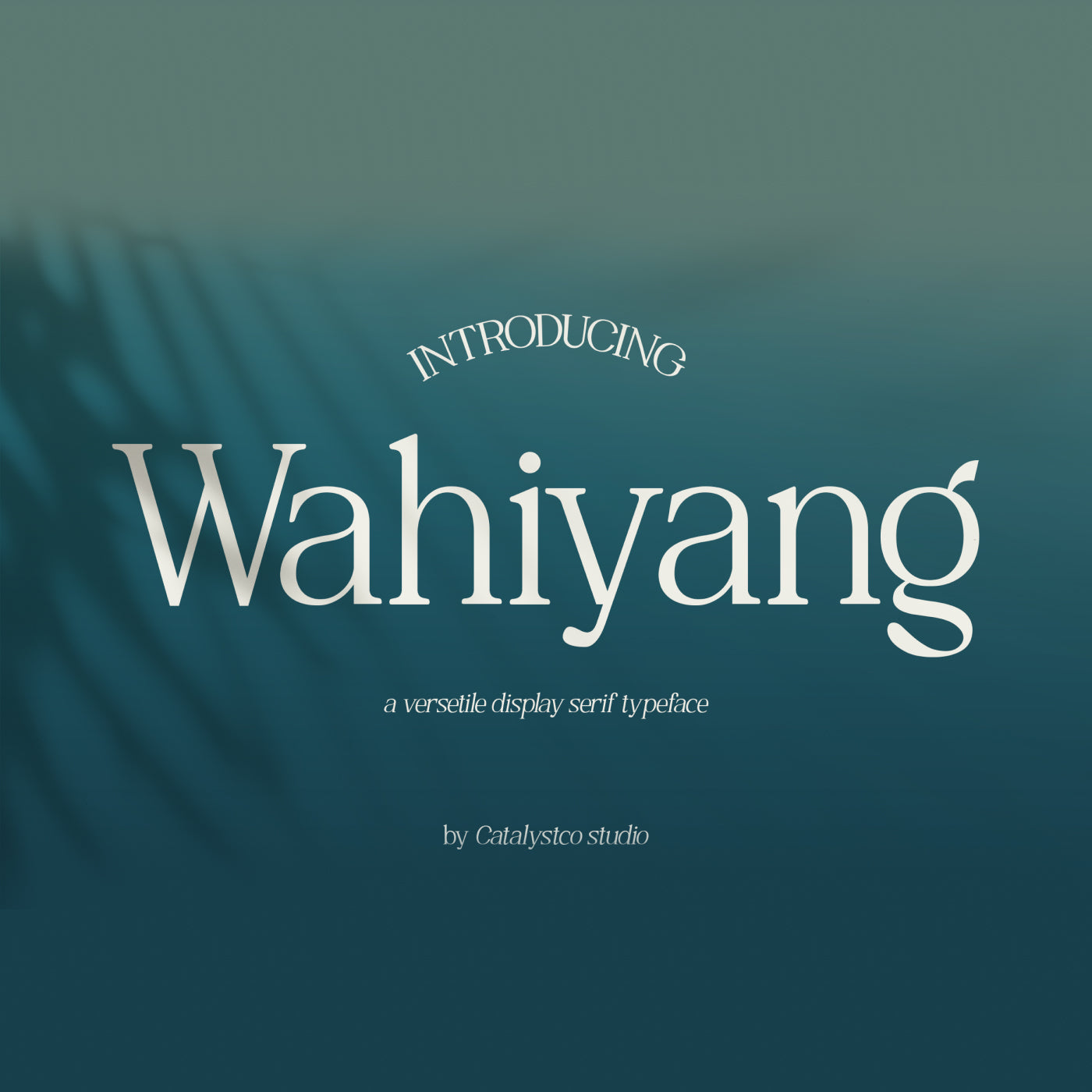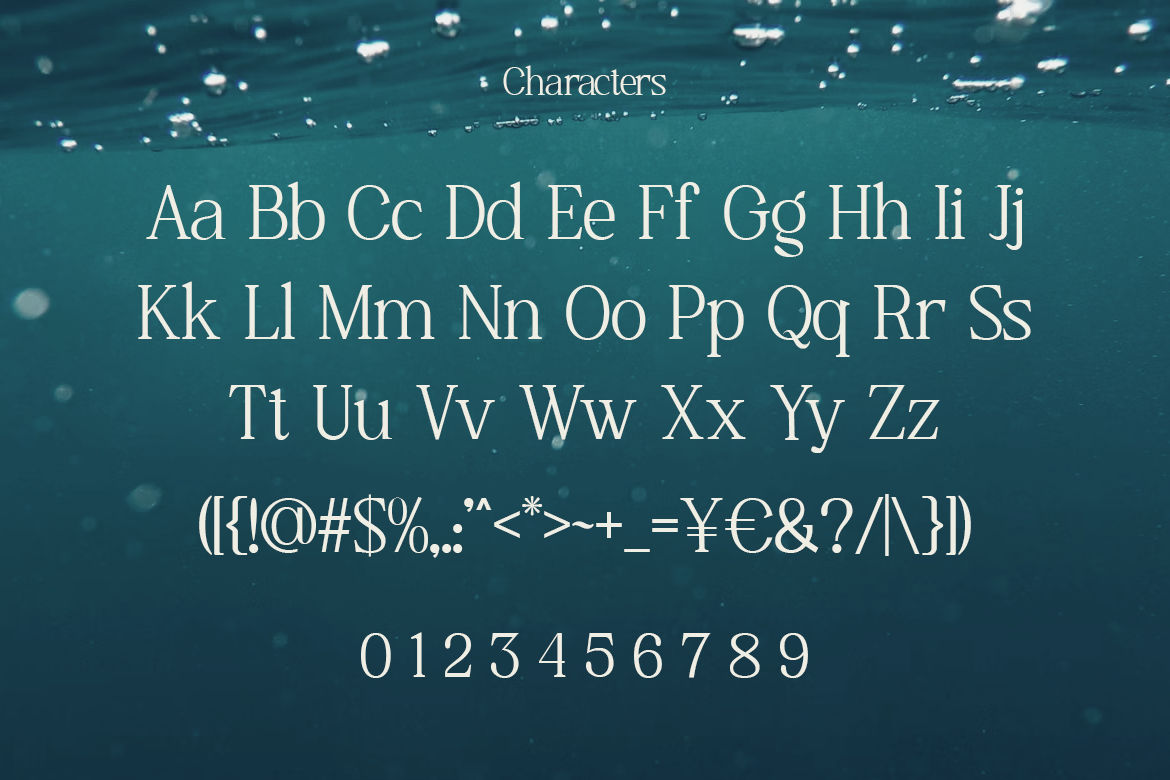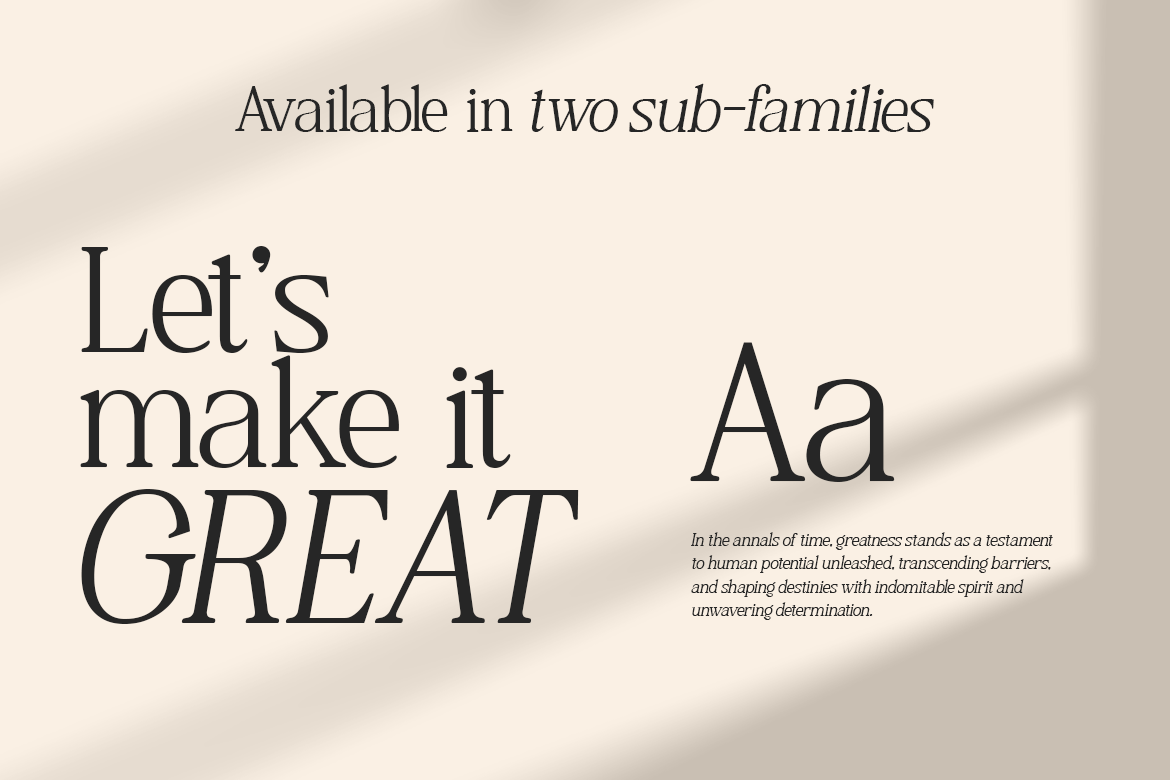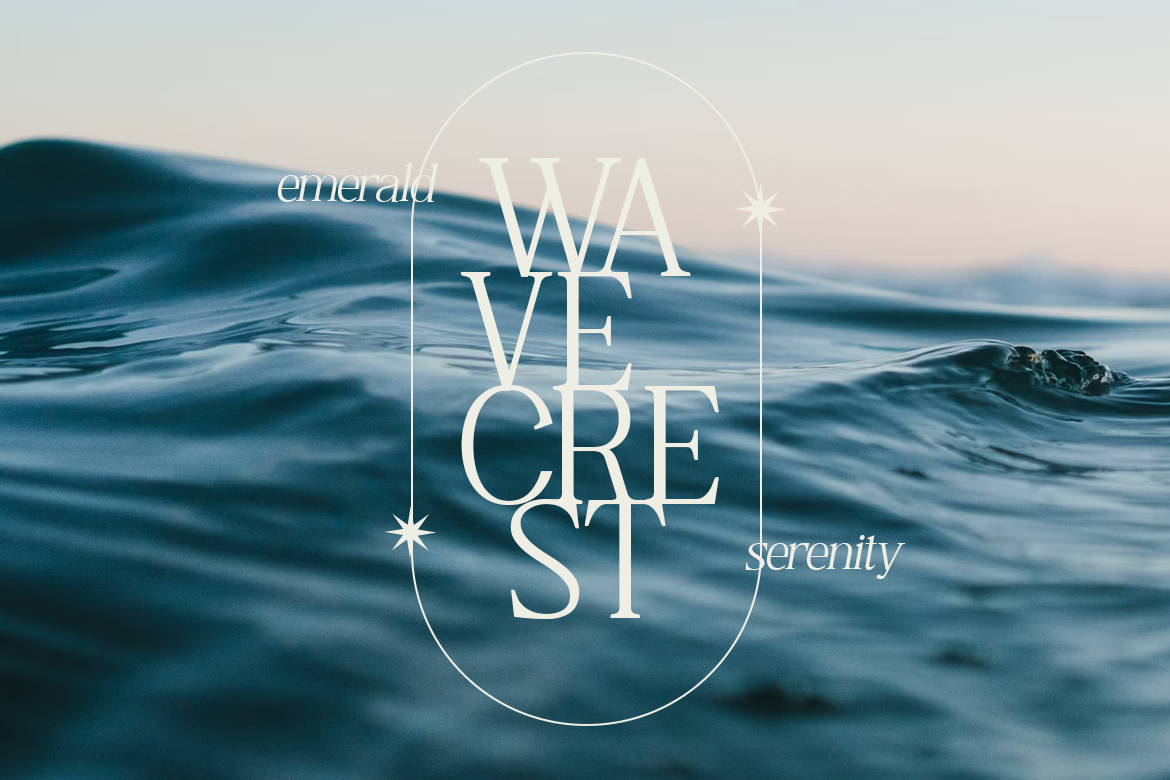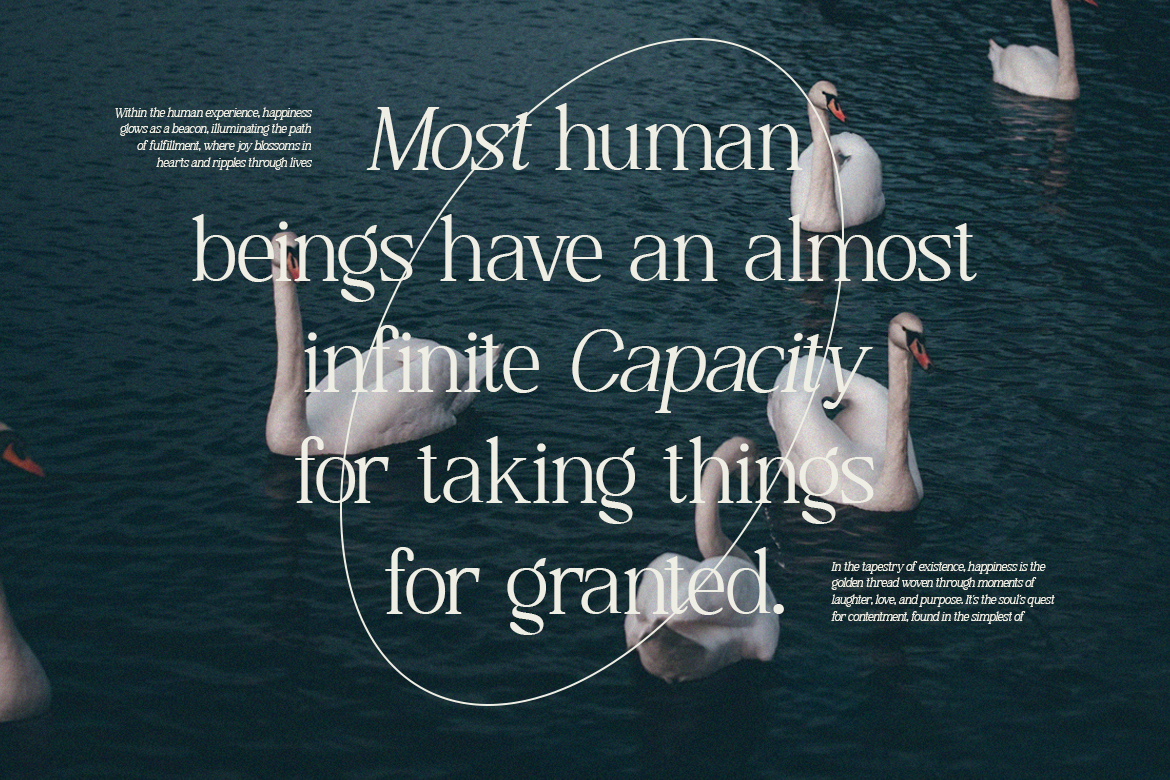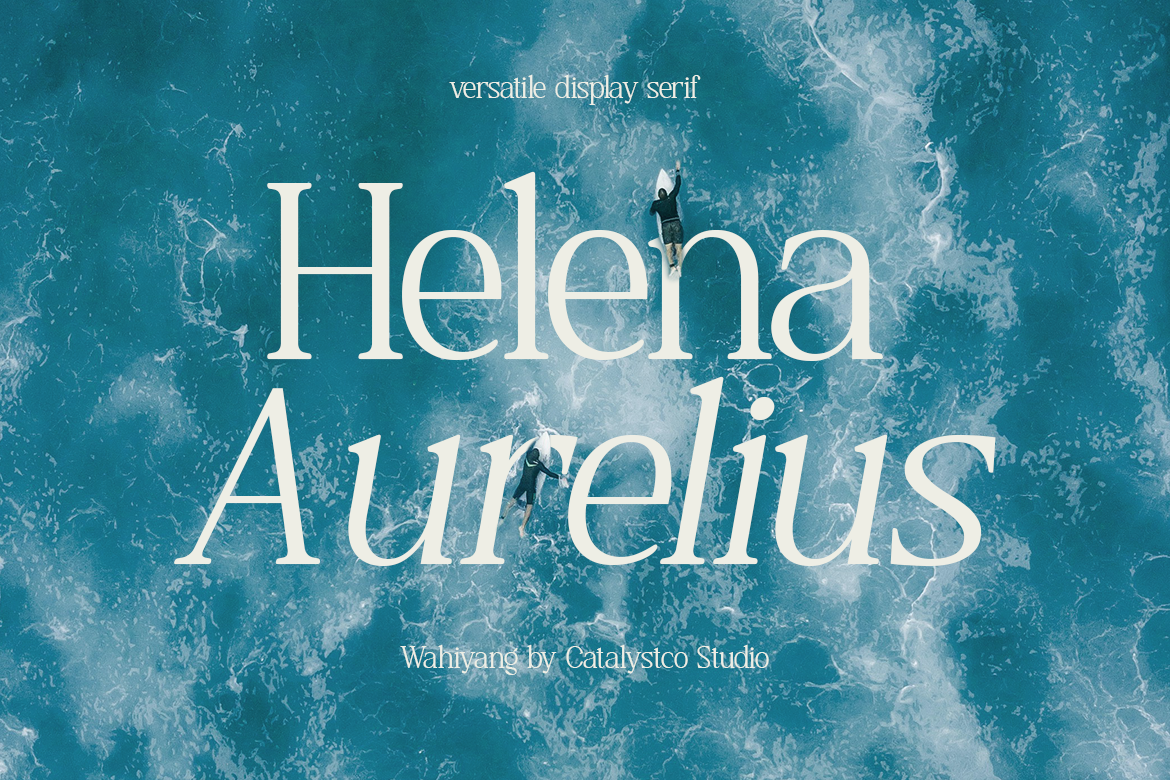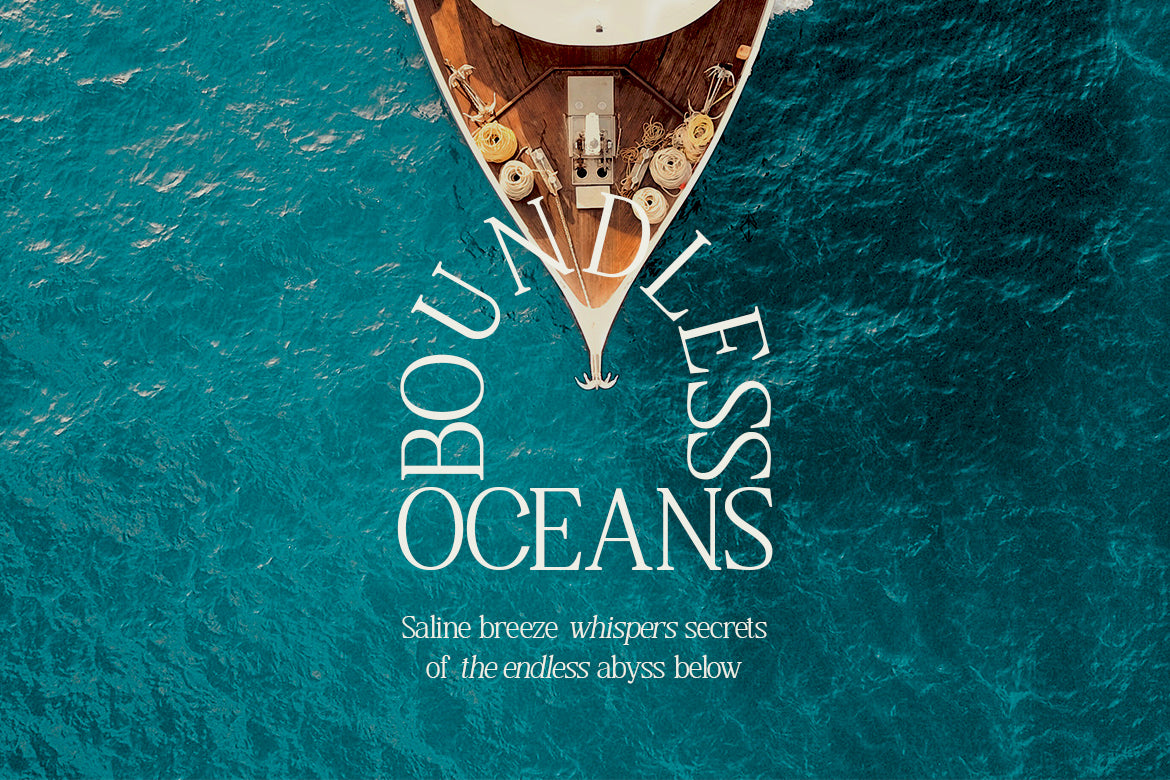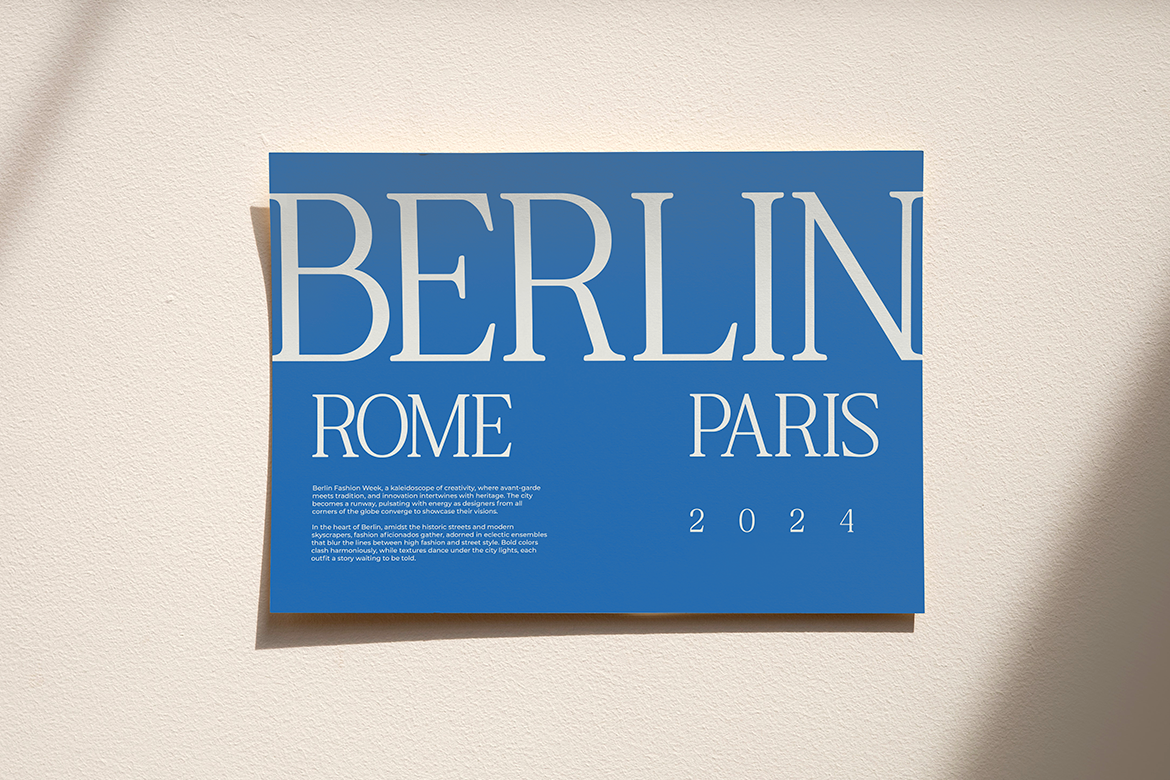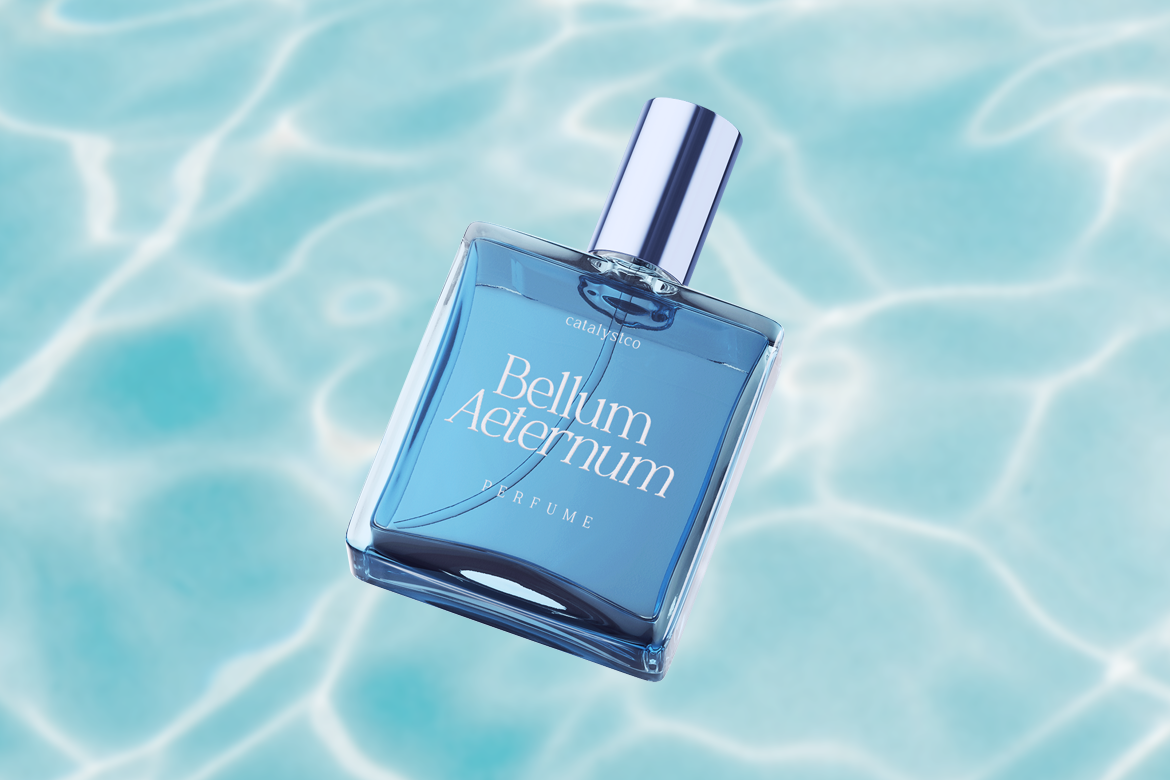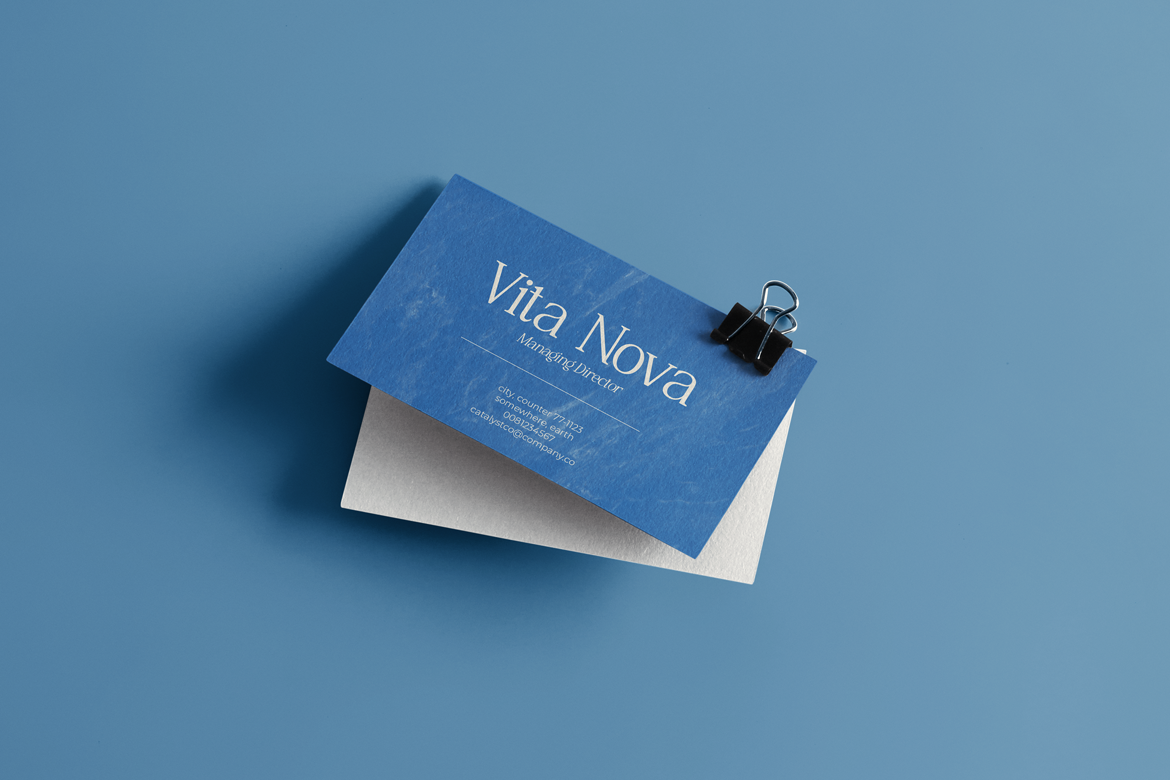
Wahiyang Display Serif Typeface Font
Wahiyang Display Serif Font Wahiyang is a versatile display serif typeface with beautifully crafted curves that blend modern precision and elegant detail. Ideal for projects that require a high-end feel like luxury brand identity, wedding fonts, fashion editorials, or signature logo design Wahiyang brings a timeless character with a refined flair. The font includes multilingual support and works perfectly in both digital and print applications. Whether you're creating a classy magazine layout, a premium font package, or a professional font for branding, Wahiyang offers the perfect combination of beauty and function.
Wahiyang is a display serif typeface featuring uppercase and lowercase letters, ligatures, alternates, numerals, and punctuation. It is available in TTF, OTF, and WOFF formats and includes multilingual support for digital and print use.